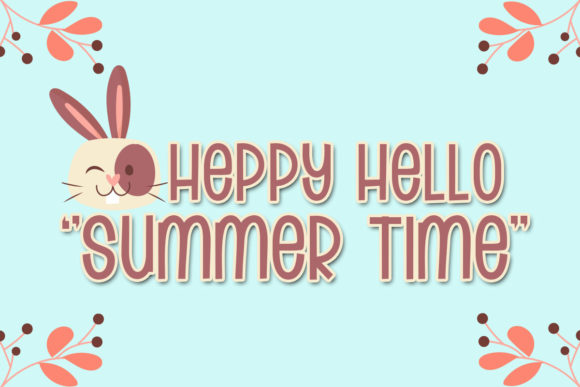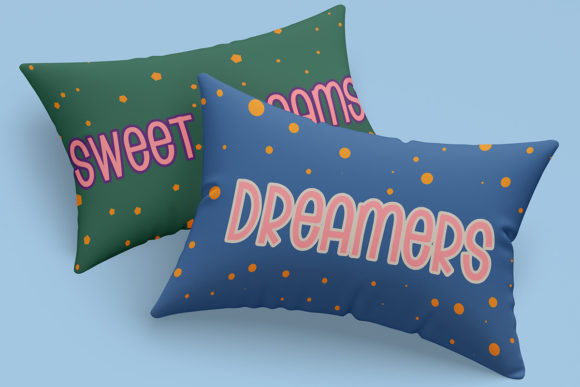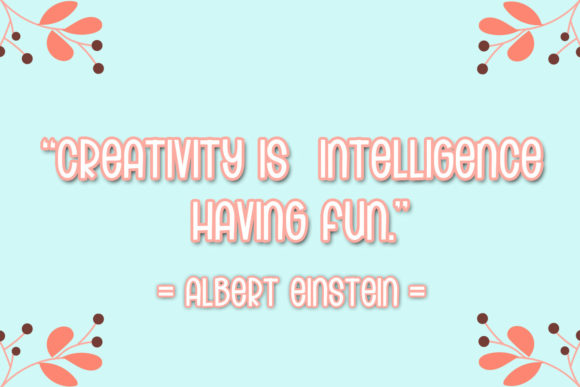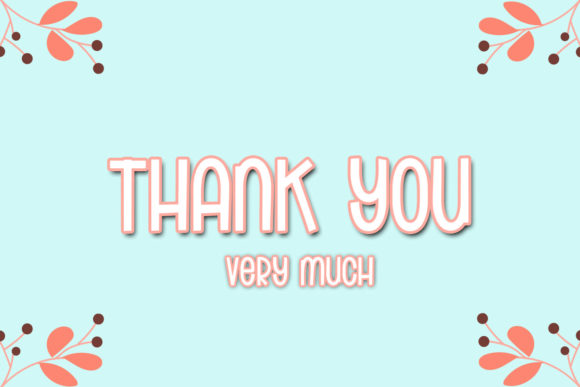
Discovering the Perfect Font for Playful Projects
Who hasn’t experienced that moment when a burst of creativity hits, and the perfect font suddenly appears in your mind’s eye? For designers, finding the right font can be the key to unlocking a project’s full potential. In this case, our creative spark led us to the delightful Cashuw Nutter Font, a charming display font that embodies the essence of playfulness and authenticity.
Crafted with the intention of bringing joy to children’s activities and school projects, the Cashuw Nutter Font is more than just a font – it’s a tool for sparking imagination and creativity. Its unique design makes it a valuable asset for designers seeking to add a touch of whimsy to their work. Whether you’re working on a children’s book, a website for a kids’ brand, or any other project that requires a playful touch, the Cashuw Nutter Font is an excellent choice.
Cashuw Nutter Font Key Features
- Font Family: Cashuw Nutter Font is a unique, hand-drawn sans-serif typeface.
- Unique Characteristics: Features a distinctive, playful style with rounded edges and a mix of bold and delicate lines, adding a touch of whimsy to any design.
Cashuw Nutter Font Review
Overall, I think the Cashuw Nutter Font is an interesting and quirky addition to any design project. ✨ It has a unique, hand-drawn feel that can add a lot of character to text-based elements. The font is quite versatile, and can be used in a variety of contexts, from titles and headings to body text and even logos.
- The font’s irregularities and imperfections give it a human touch, making it feel more approachable and relatable.
- Cashuw Nutter Font is suitable for projects that require a more casual, informal tone.
- It’s a great choice for designers who want to add some visual interest to their designs without going overboard.
However, there are a few limitations to consider. ⚠️ The font’s irregularities can also make it difficult to read, especially at smaller font sizes. Additionally, the font may not be suitable for projects that require a more formal or professional tone.
In terms of overall impression, I think the Cashuw Nutter Font is a solid choice for designers who are looking for a unique and quirky font. While it may not be suitable for every project, it’s a great option for those who want to add some personality to their designs.
For best results, use the Cashuw Nutter Font for creative projects, such as branding, marketing materials, or social media graphics. It’s ideal for headings, titles, and short paragraphs. Experiment with different font sizes and styles to add visual interest.